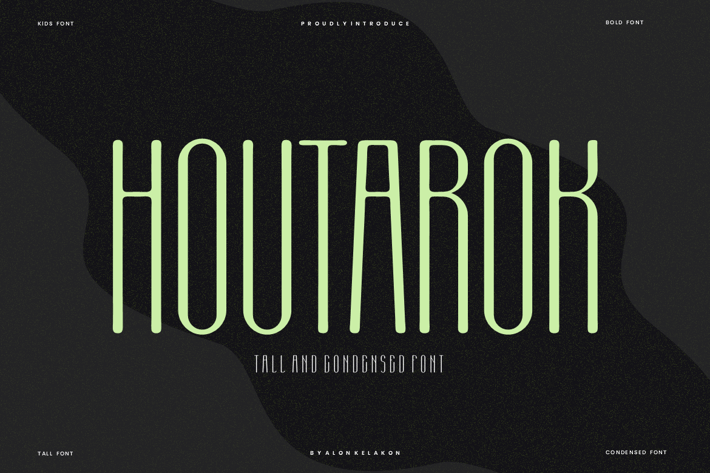
Houtarok - Tall & Condensed Font
Houtarok Font is unique . Ready to use for your design like labeling, movie sceen, poster, movie title, gigs, album covers, logos, and much more.